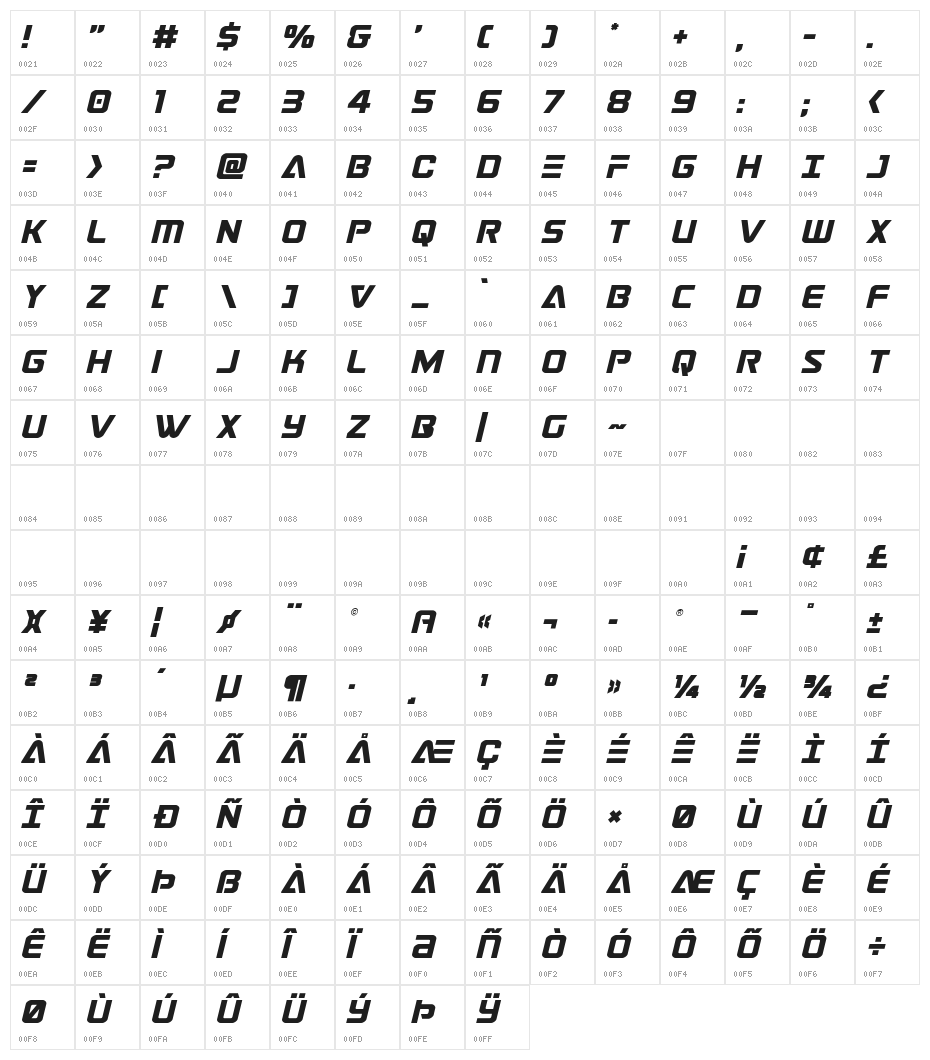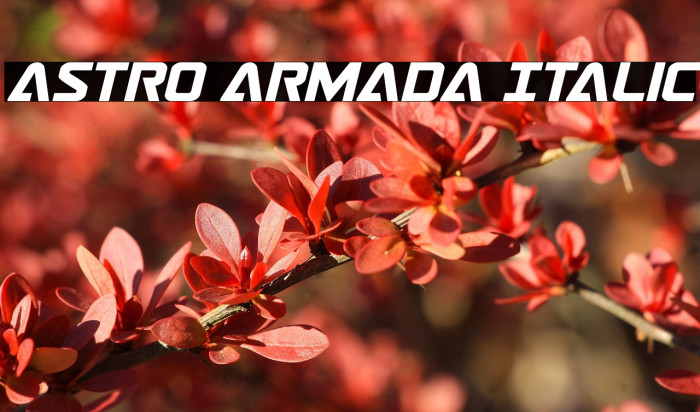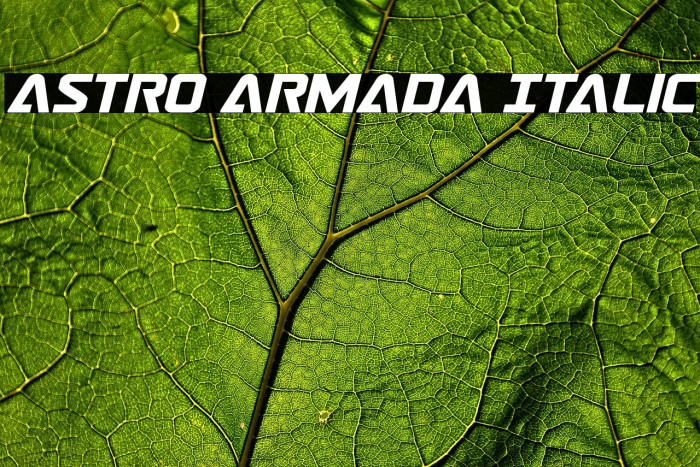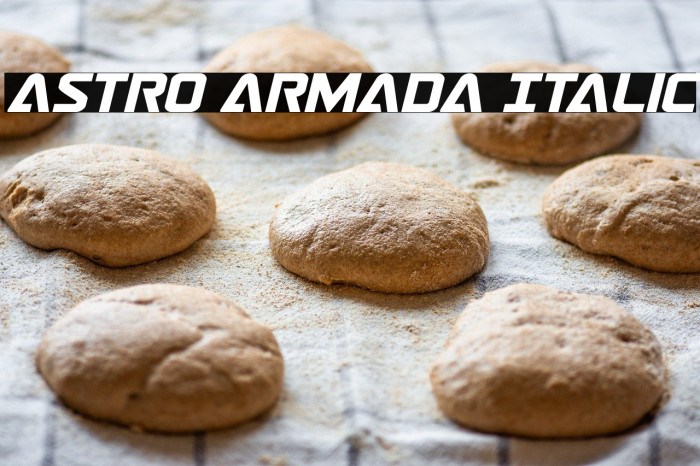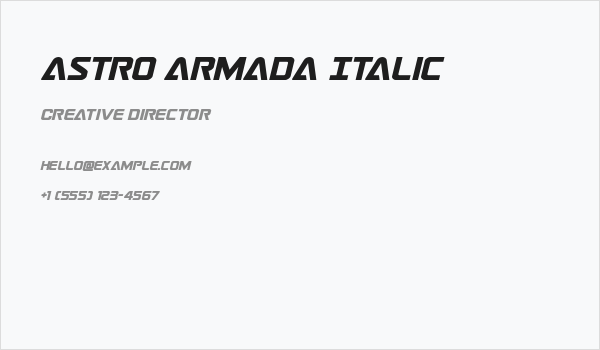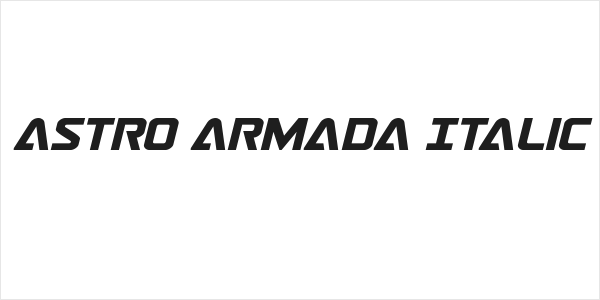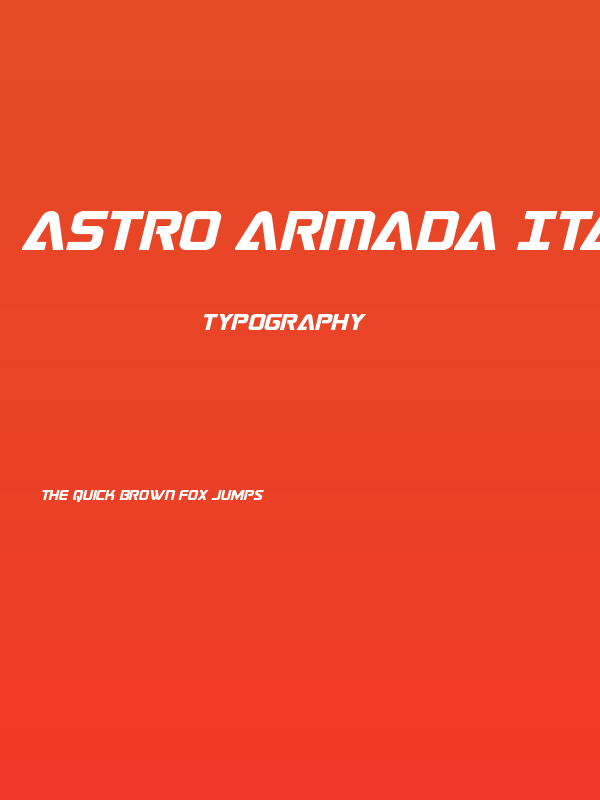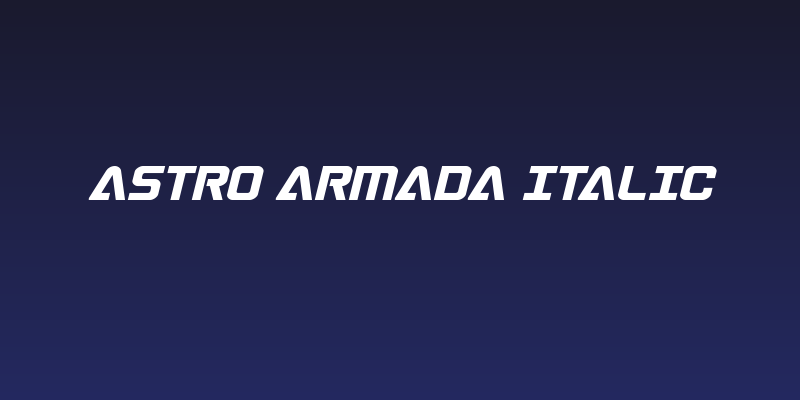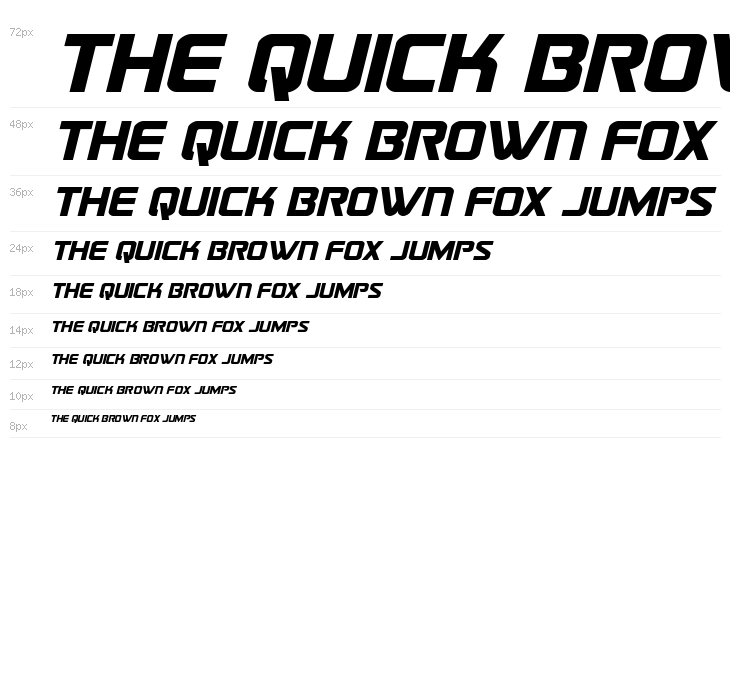
Astro Armada Italic Font
Astro Armada Italic Description
This font features a futuristic and dynamic design with a strong italic slant, giving it a sense of motion and speed. The characters are bold and angular, with sharp edges and a geometric structure that conveys a modern and technological feel. The uppercase and lowercase letters maintain a consistent style, while the numerals and special characters complement the overall aesthetic. This font is ideal for projects that require a bold and impactful visual presence, such as technology branding, sci-fi themes, or sports-related designs.
| Proposed Projects | Ideal for technology branding, sci-fi themes, sports designs, and dynamic logos. |